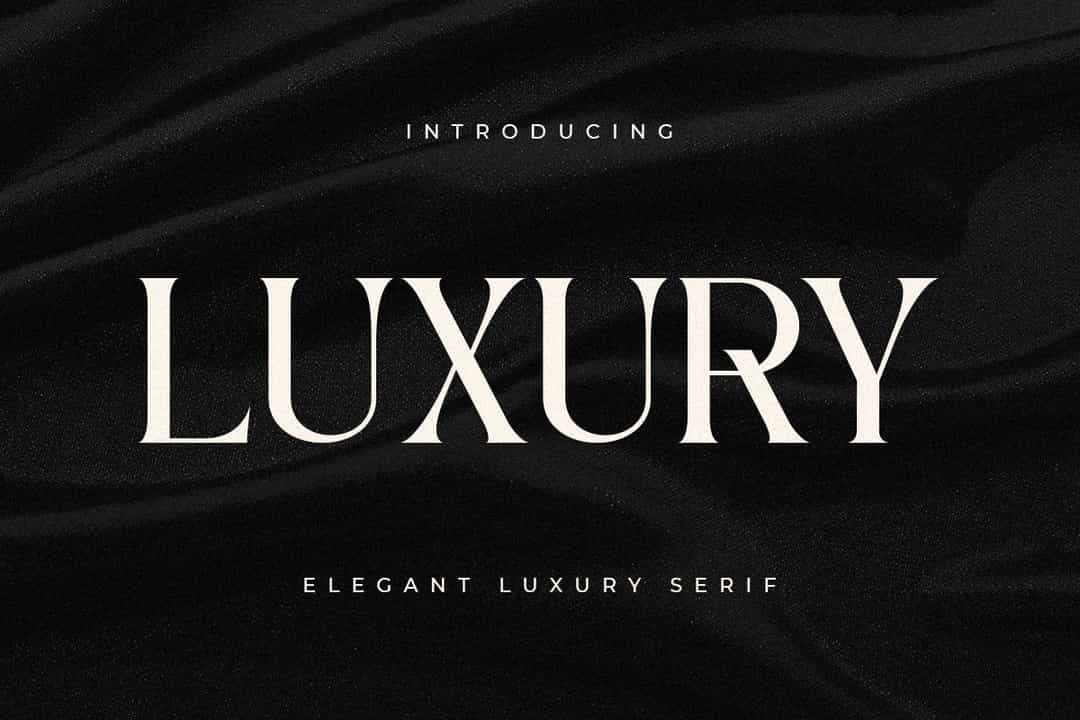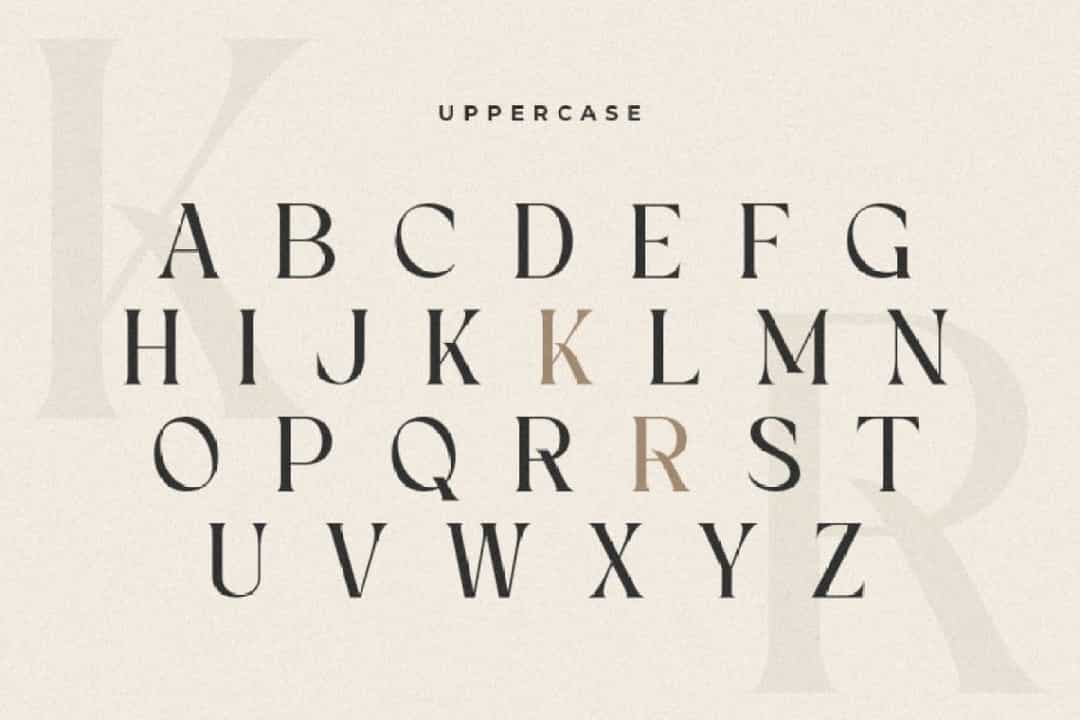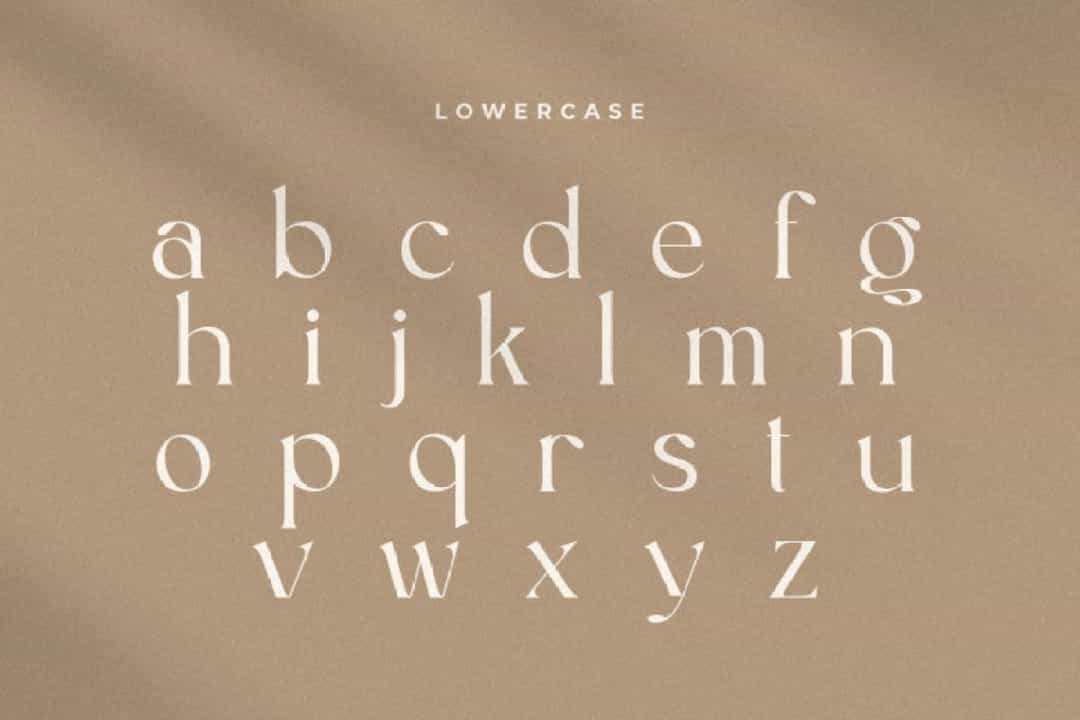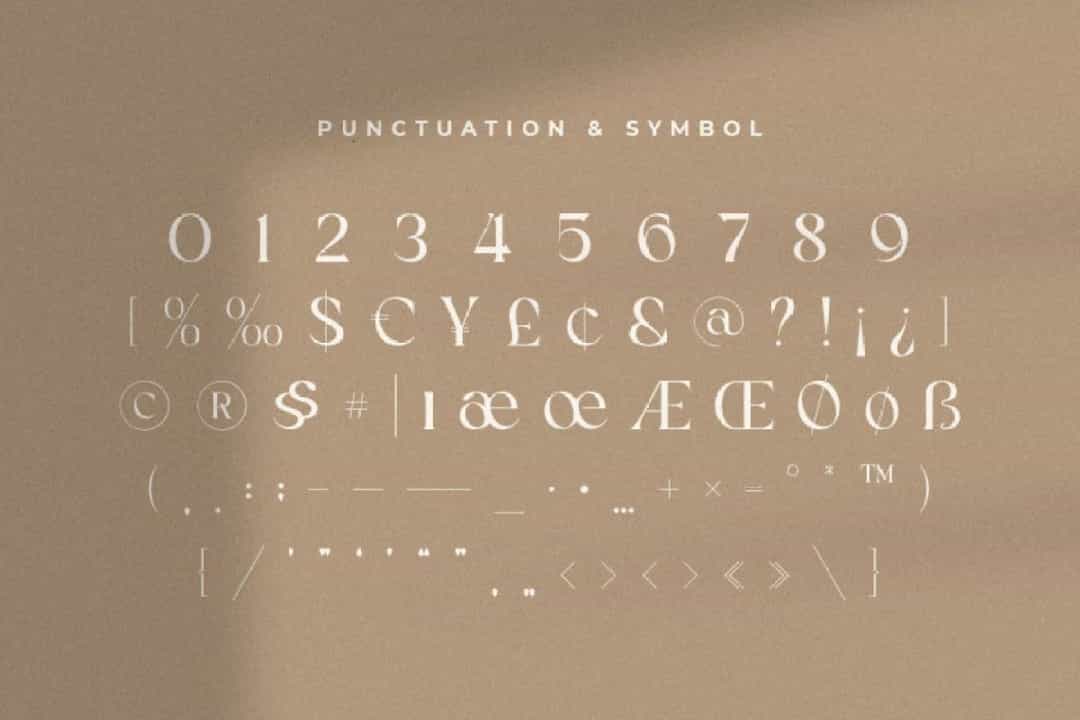
Luxury Font is an exquisite display font with a seriffed design that will add the touch of sophistication to your projects. It is good to share with a designer or a product owner who requires solutions to enhance the look of their design to be Luxury and modern.